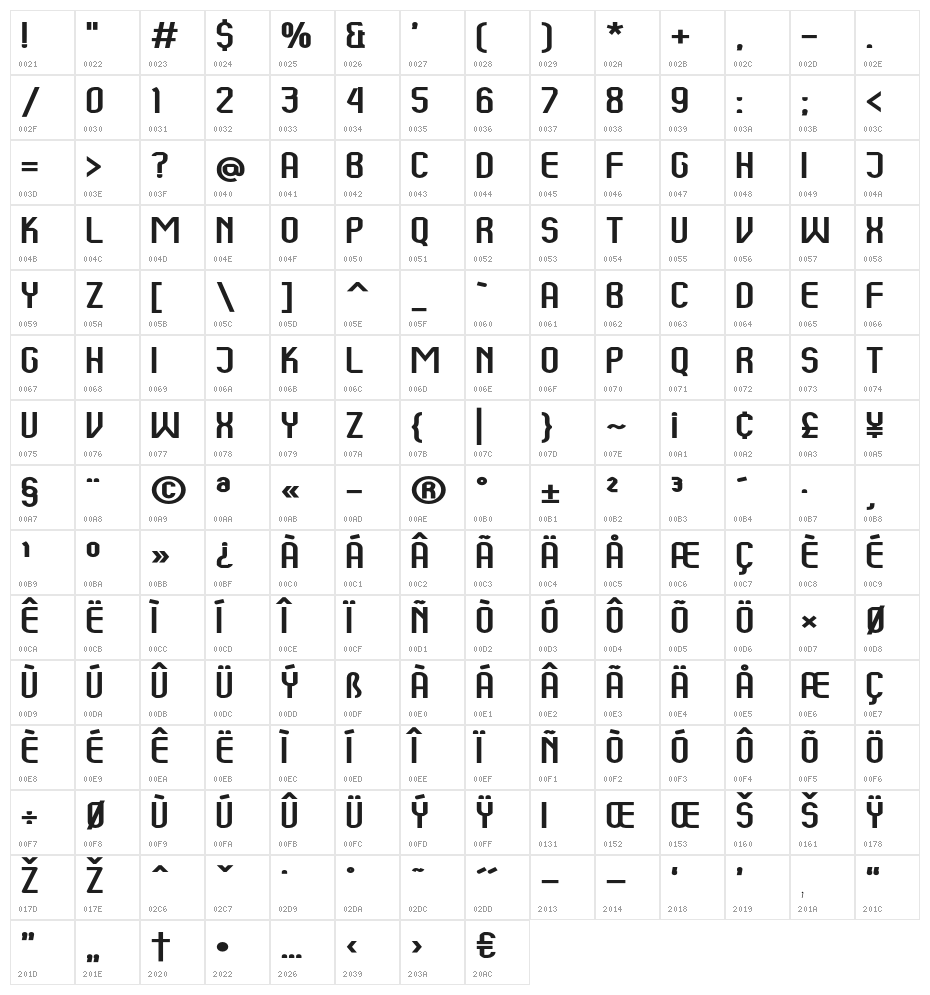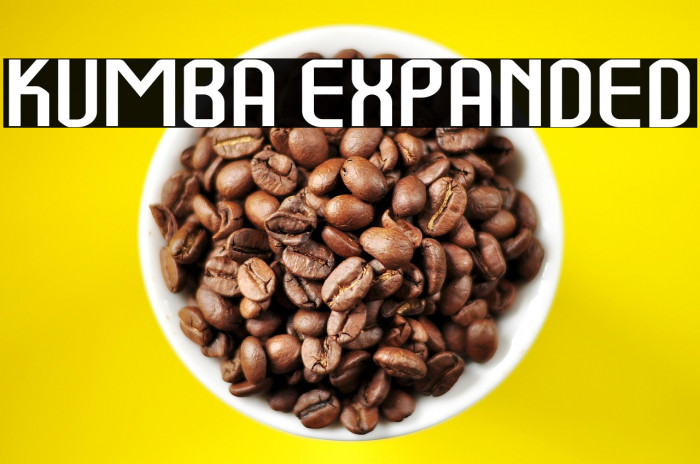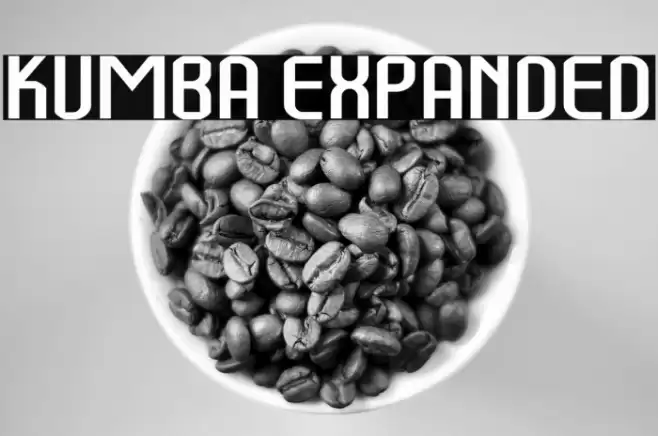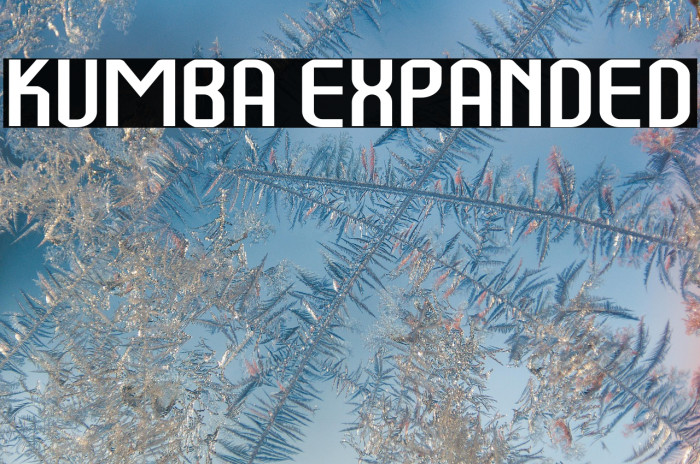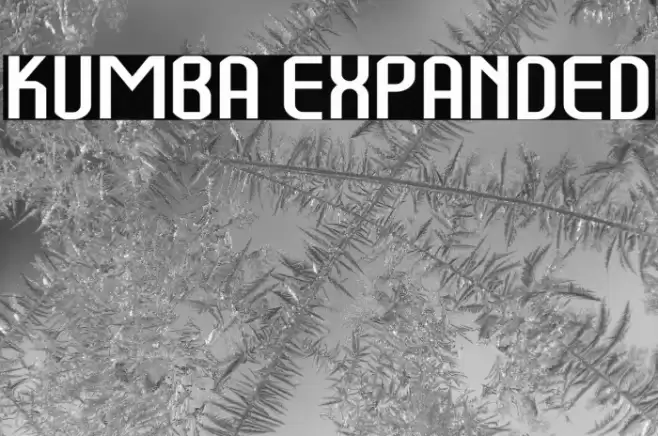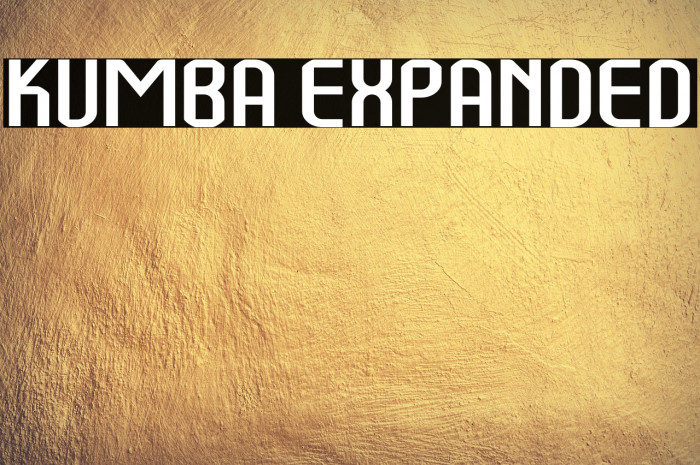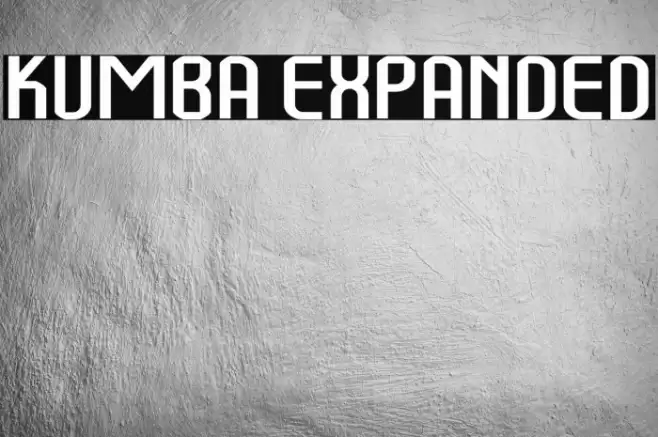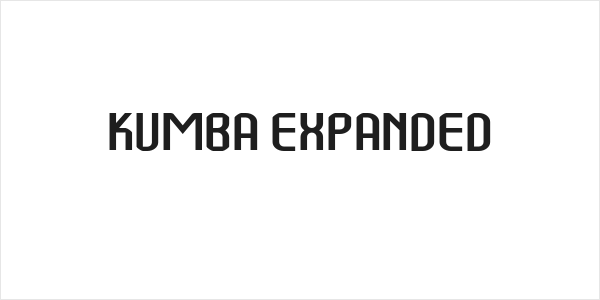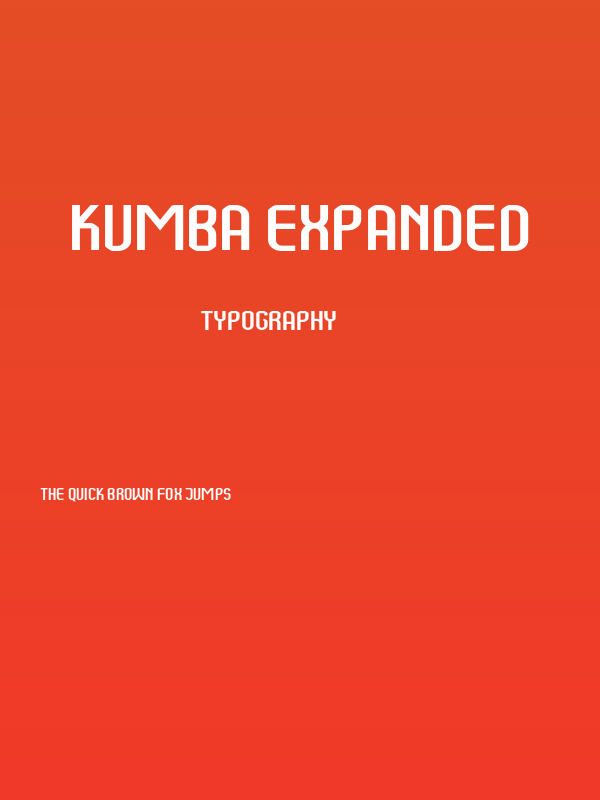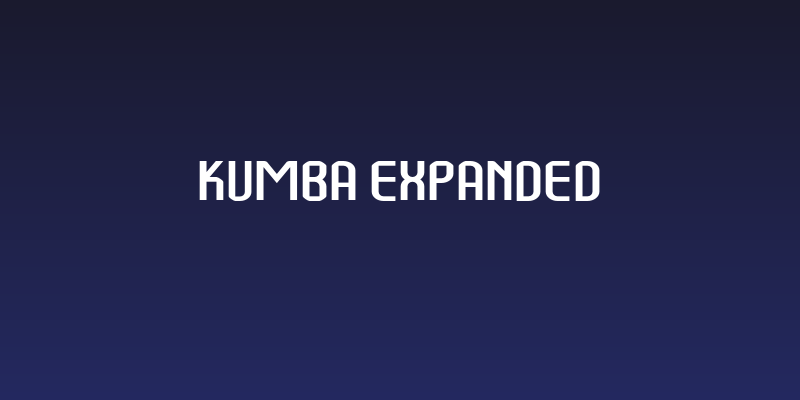
Kumba Expanded Font
Kumba Expanded Description
This font features a bold and geometric style with a strong presence. The characters are designed with a modern and clean aesthetic, characterized by straight lines and sharp angles. The uppercase letters are uniform in height, creating a cohesive look, while the lowercase letters maintain a similar structure, ensuring readability. The numerals are distinct and align well with the overall design, making them suitable for various applications. Special characters are included, offering versatility for different contexts. The font's expanded width gives it a commanding appearance, ideal for making statements.
| Proposed Projects | Ideal for branding, headlines, posters, and signage where a strong, modern look is desired. |